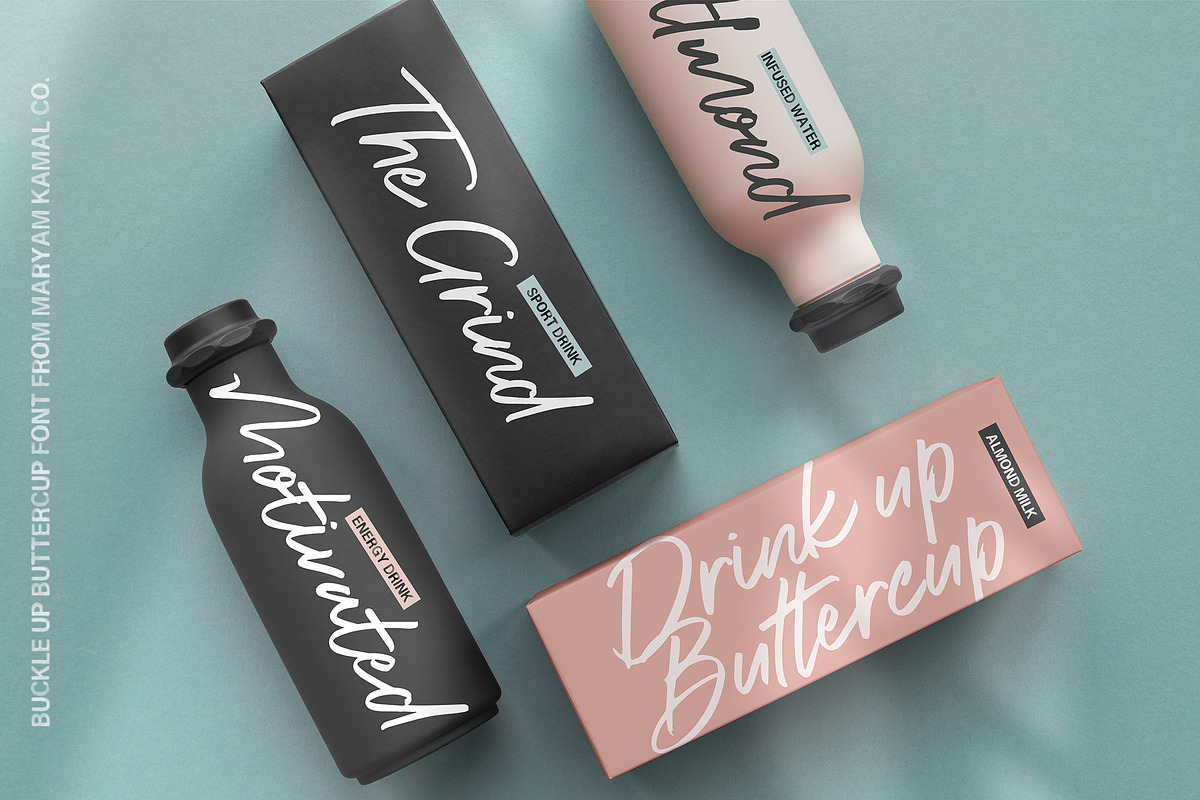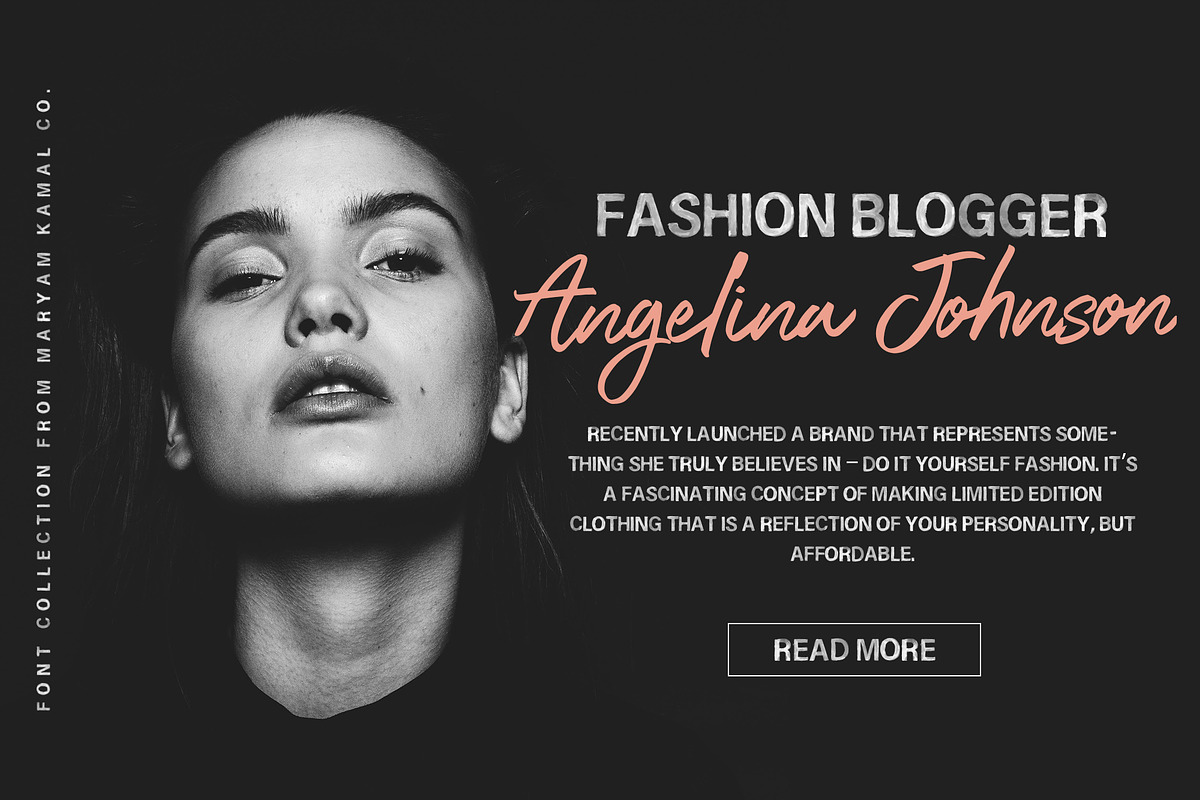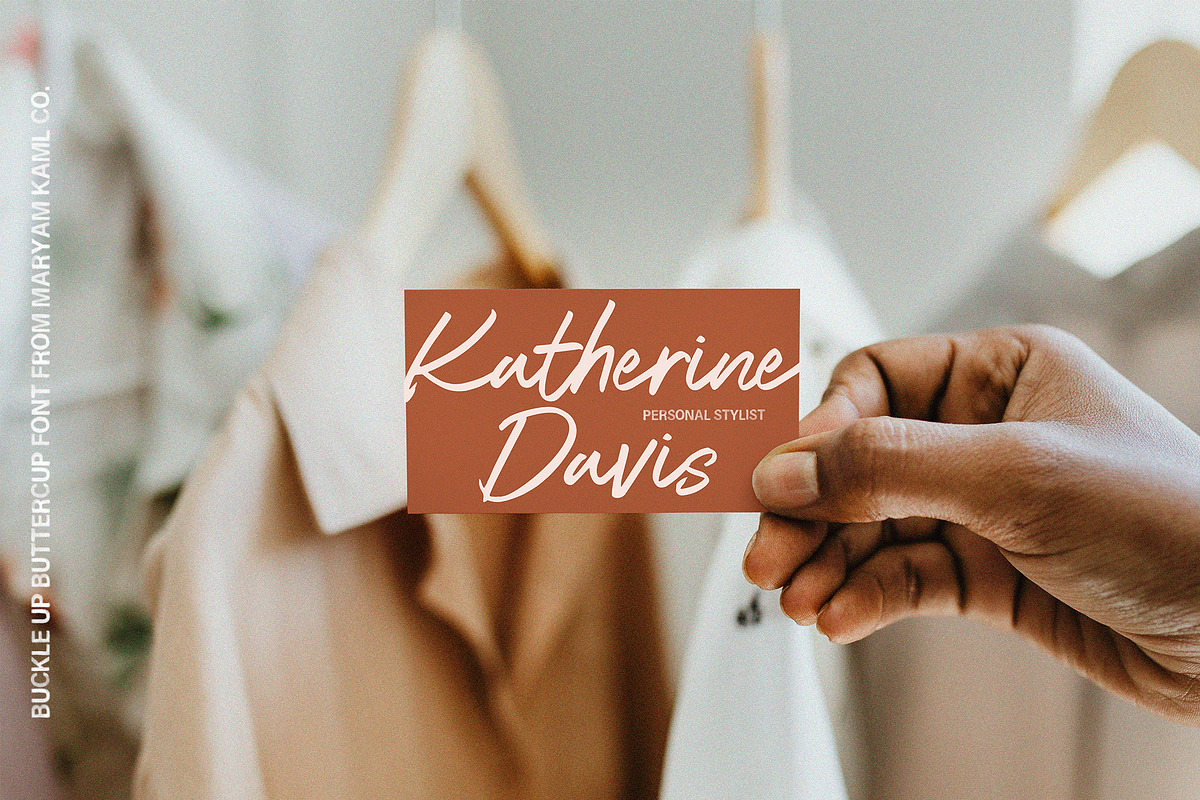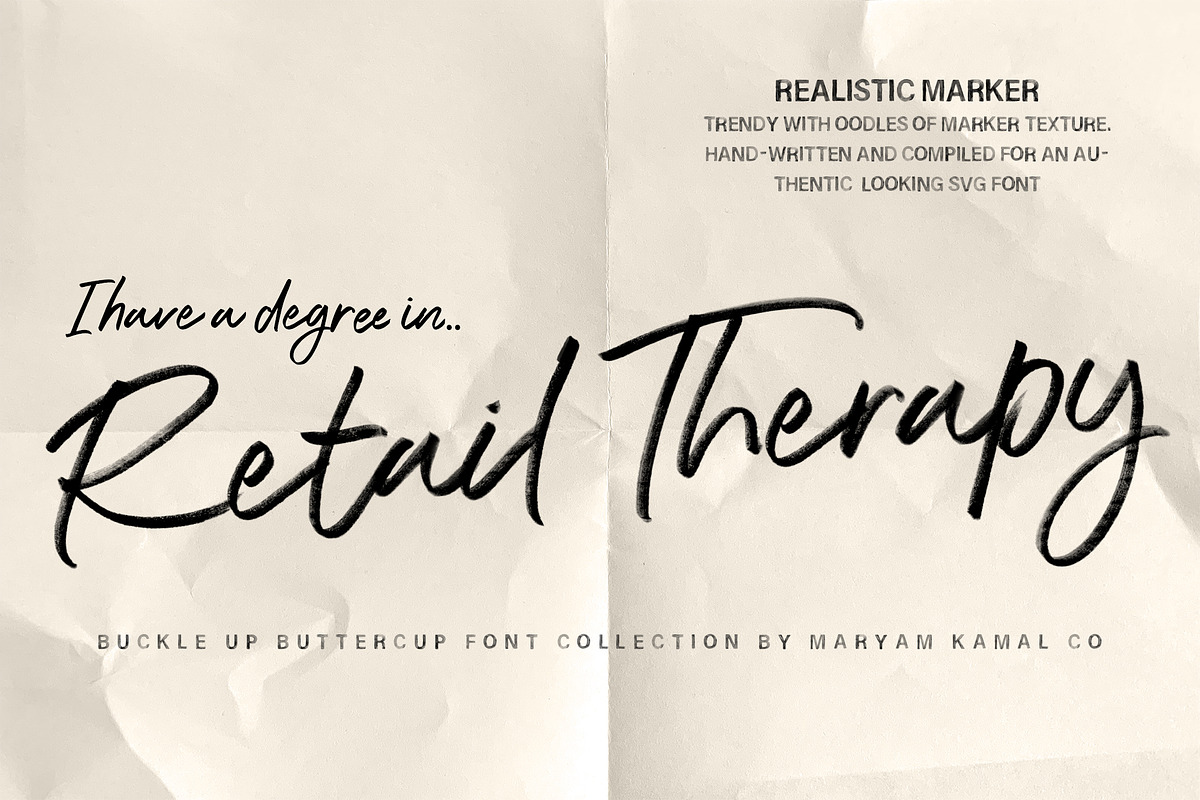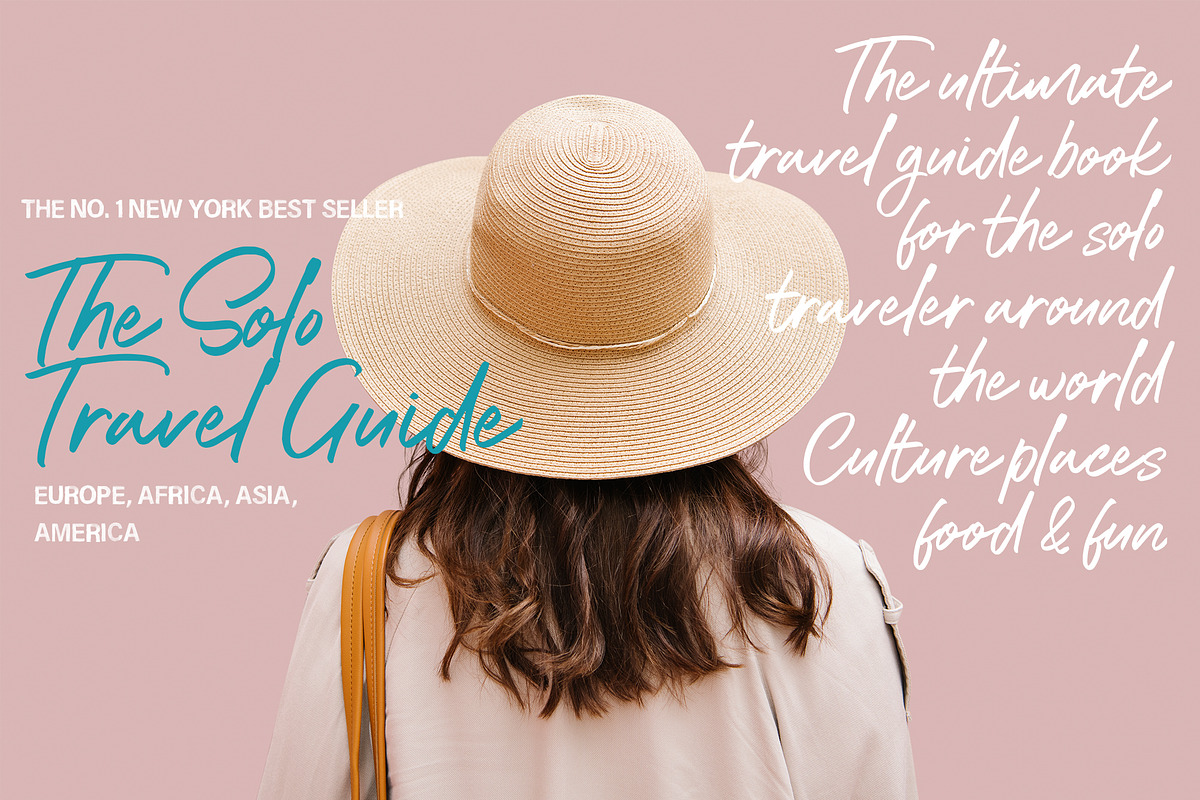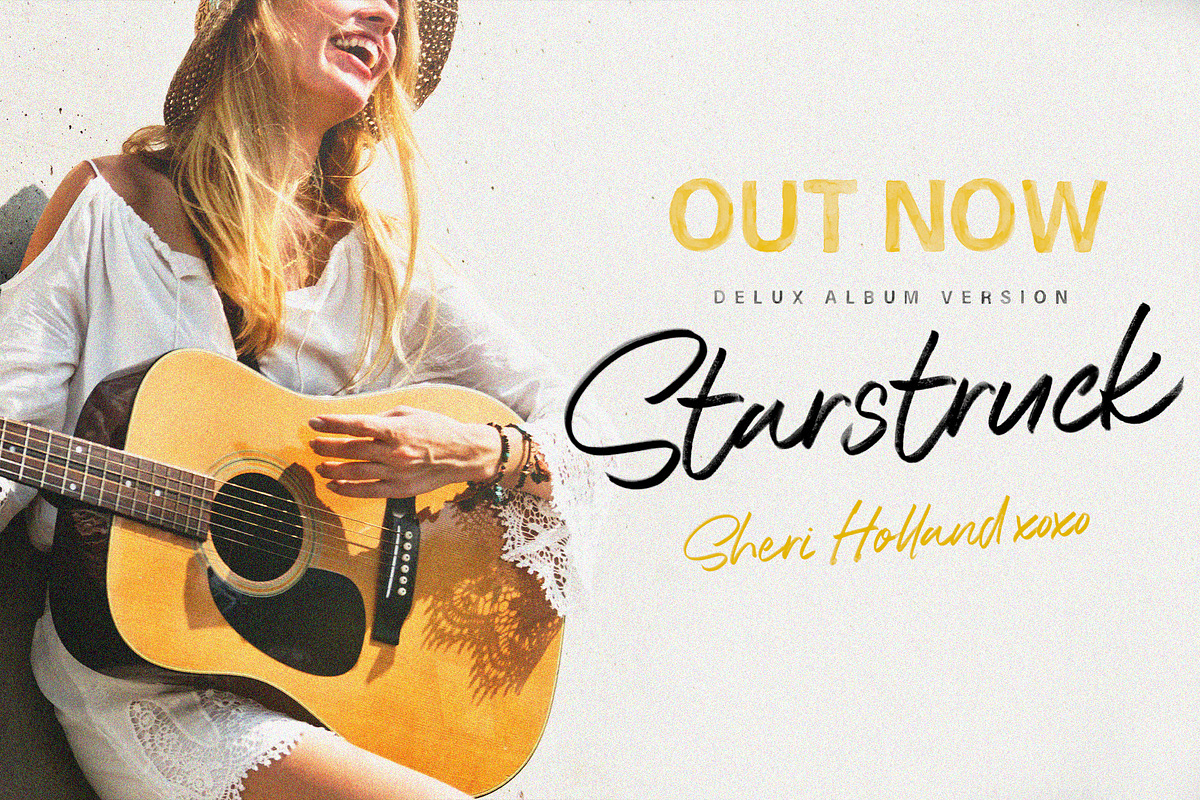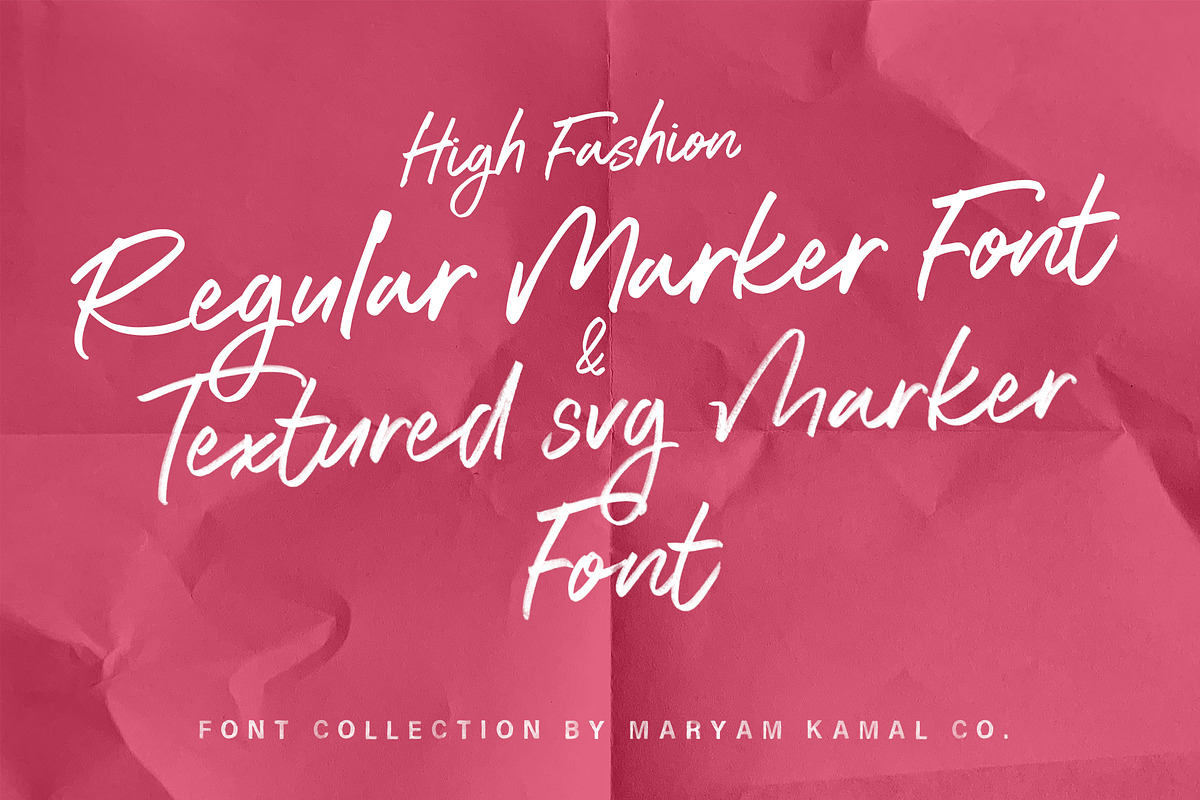
Buckle up Buttercup Font Collection
Introducing the all-new Buckle up Buttercup casual Marker font!
A Highly versatile classic marker font, designed to look as close as possible to natural handwriting by keeping the subtle imperfections on the edges, not polished yet gives a statement look. Not sure how to get started? I've included a handful of ideas in the preview images so be sure to scrawl thought! :)
Great for many uses such as magazine headlines, high fashion, bold signature branding, classy packaging, eye-catching callouts and stand-out advertising.
Includes Opentype features - it’s packed with natural-looking ligatures, uppercase and lowercase alternate characters set for both the Solid and SVG version - all of these OpenType extras make your type design look mush less computerized, and much more like naturally handwritten as you type.
Pair it with a sans serif font, or a classy serif to add another whole new dimension to this very versatile marker font. Great as large and small sizes.
Uppercase and Lowercase Alternate Letters: the signature SVG font comes in two variations, with a complete alternative set of Uppercase and Lowercase letters - to allow you to pick and choose which letters suit your design.